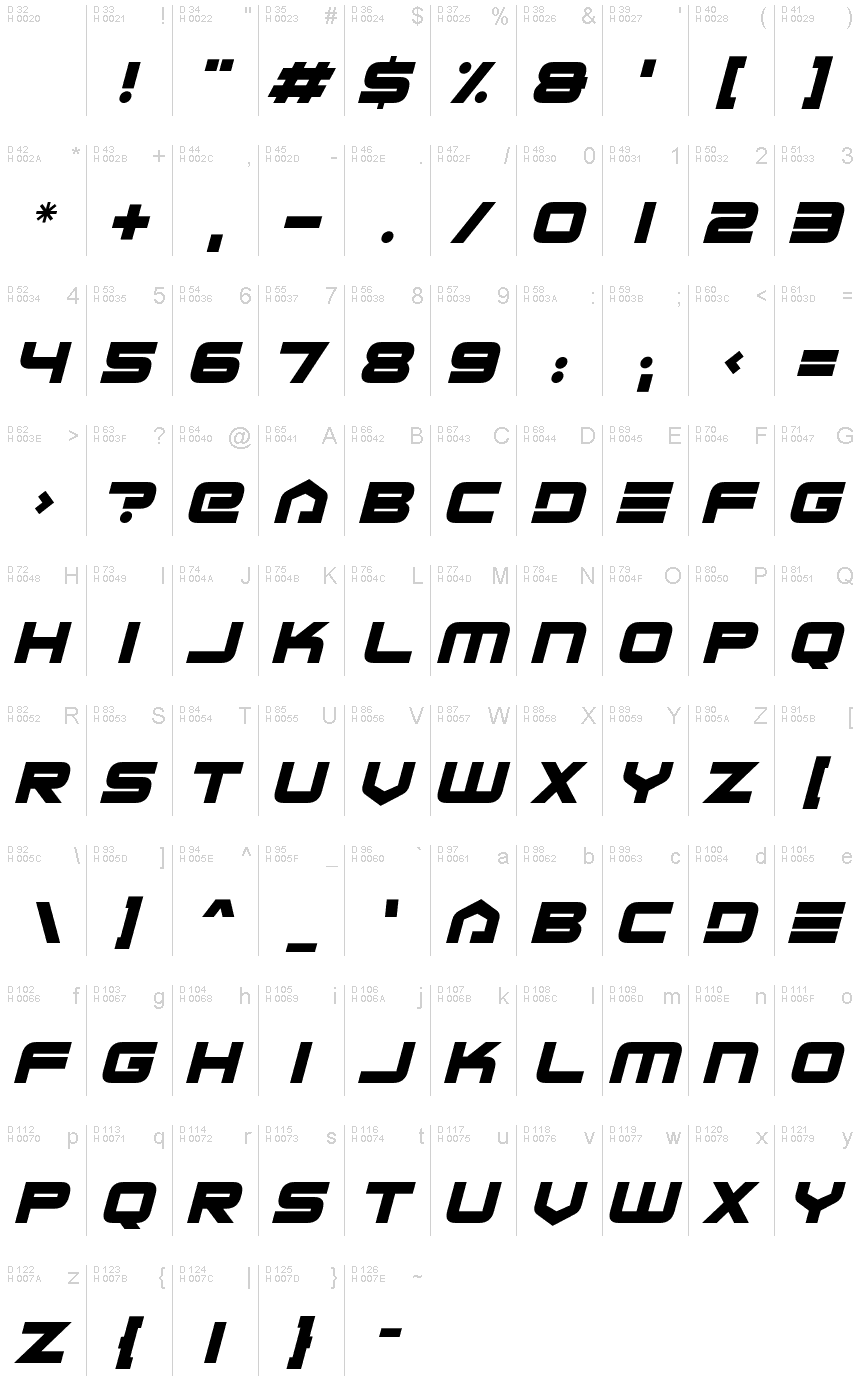
Alien Invader Italic
Alien Invader Italic is a display font designed by Darrell Flood that perfectly captures the futuristic vibe. With its expanded width and italic style, it's perfect for projects that require an eye-catching design. This font typeface is ideal for gaming titles, science fiction movies, or any project that requires a futuristic touch. Its unique style and bold appearance make it suitable for posters, flyers, and social media graphics. Alien Invader Italic is perfect for designs that need to stand out from the crowd and leave an impression on the viewer's mind.